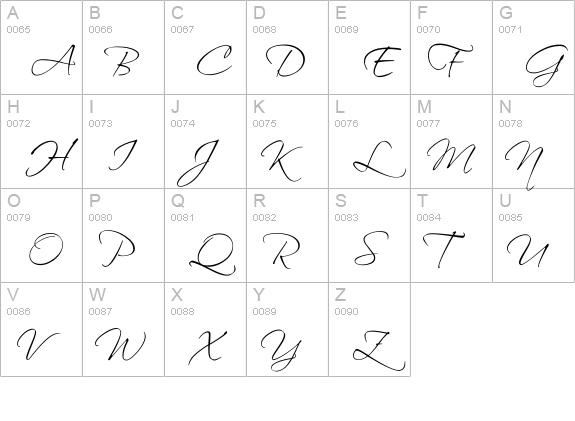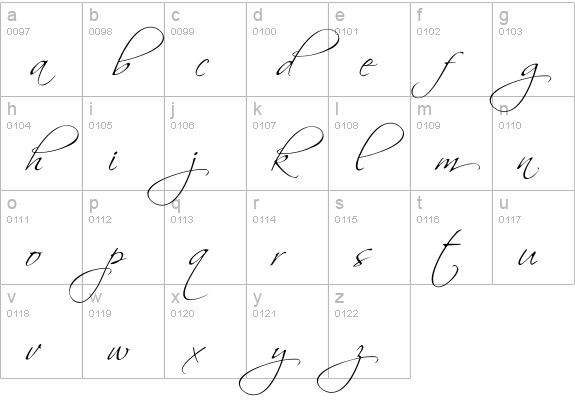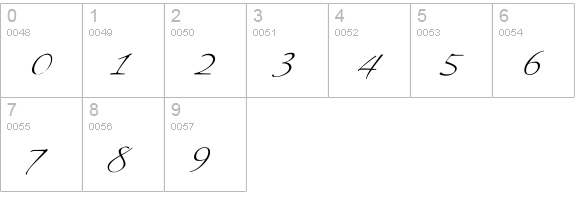
Scriptina Pro is a captivating and elegant font that adds a touch of sophistication to any project. With its delicate and flowing lines, this font captures the essence of handwritten calligraphy, making it perfect for invitations, greeting cards, and other special occasions. The beauty of Scriptina Pro lies in its versatility. Whether you're designing a wedding invitation, creating a logo for a high-end brand, or simply adding a touch of elegance to your personal blog, this font is sure to impress. Its graceful curves and fine details make it a standout choice for any design project. And the best part? Scriptina Pro is available for free download at FontsMarket.com. That's right, you can add this stunning font to your collection without spending a dime. FontsMarket.com is a trusted source for high-quality fonts, and they offer Scriptina Pro as a complimentary download, allowing you to bring your creative visions to life without breaking the bank. So why wait? Enhance your designs with the timeless beauty of Scriptina Pro. Download it for free at FontsMarket.com and let your creativity soar.